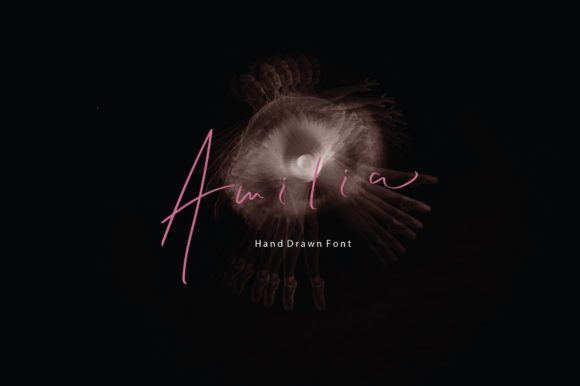
The Sweet and Delicate Charm of Amillia Font
As a designer, I’ve had my fair share of moments where I’ve struggled to find the perfect font for a project. I recall working on a wedding invitation design for a client who wanted something sweet, elegant, and unique. After hours of scrolling through font libraries, I stumbled upon Amillia Font, and it instantly stole my heart. In this article, I’ll share my experience with Amillia Font, its features, and how to make the most of it in various design platforms.
A Personal Review of Amillia Font
Amillia Font is a beautiful, handwritten font that exudes a sense of delicacy and sophistication. Here’s what I love about it:
- ✨ Sweet and delicate: Amillia Font has a charming, whimsical feel that’s perfect for designs that require a touch of elegance.
- ✅ Incredibly versatile: This font can be used for a wide range of projects, from wedding invitations and stationery to social media posts and branding.
- 💕 Emotional connection: Amillia Font has a way of evoking emotions and creating a connection with the reader, making it ideal for designs that require a personal touch.
While Amillia Font is a stunning font, it’s not without its quirks. Here are a few things to keep in mind:
- 🤔 Limited character set: Amillia Font may not have an extensive character set, but it does come with a range of glyphs and stylistic alternates that can be used to add variety to your designs.
- ⚠️ Legibility at small sizes: As with any handwritten font, Amillia Font may not be legible at very small sizes. It’s best to use it at larger sizes or for headlines.
The Story Behind Amillia Font
Amillia Font was designed by a talented type designer who wanted to create a font that would evoke emotions and create a connection with the reader. The font is named after a loved one who inspired the designer to create something beautiful and unique.
- Q: What is Amillia Font?
- A: Amillia Font is a sweet and delicate handwritten font that’s perfect for designs that require a touch of elegance.
- Q: Can I use Amillia Font for my wedding invitations?
- A: Absolutely! Amillia Font is a popular choice for wedding invitations and other stationery designs.
- Q: Does Amillia Font come with a range of glyphs and stylistic alternates?
- A: Yes, Amillia Font comes with a range of glyphs and stylistic alternates that can be used to add variety to your designs.